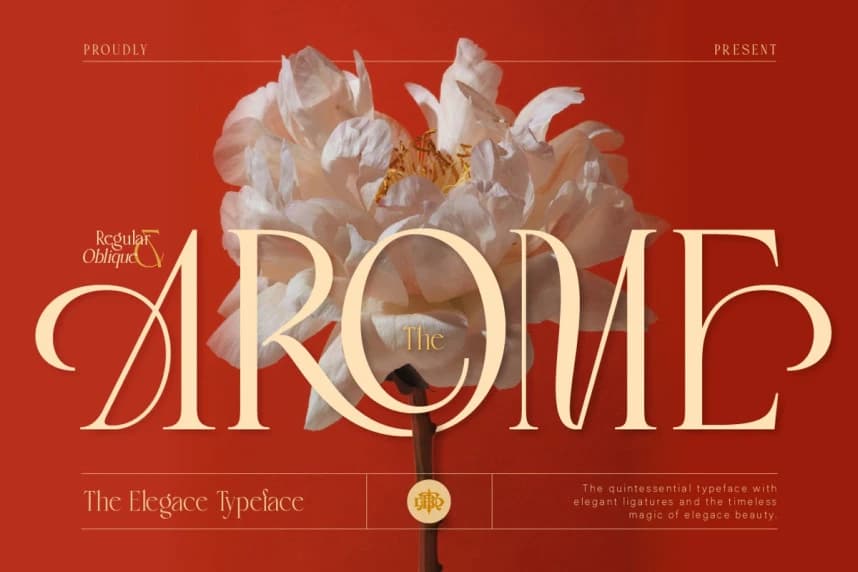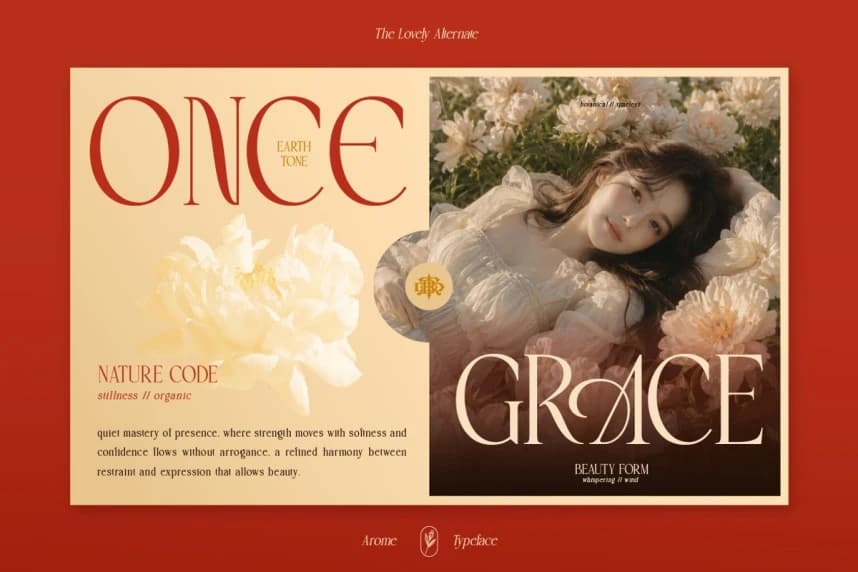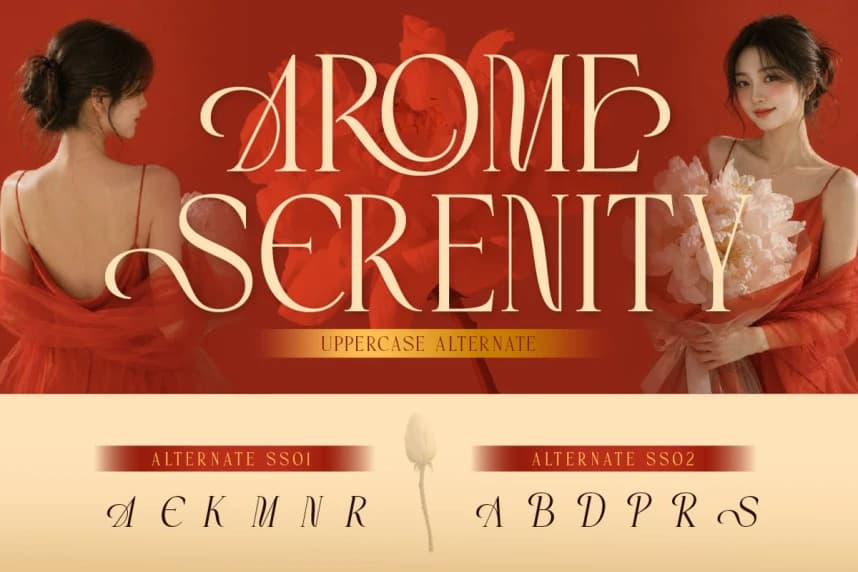
Arome Serif Font
Arome Serif Font is a refined serif typeface designed to bring a sense of elegance, romance, and timeless beauty into your work. With its graceful curves, high contrast strokes, and delicate details, Arome creates a luxurious look that feels both classic and modern.
Arome Serif